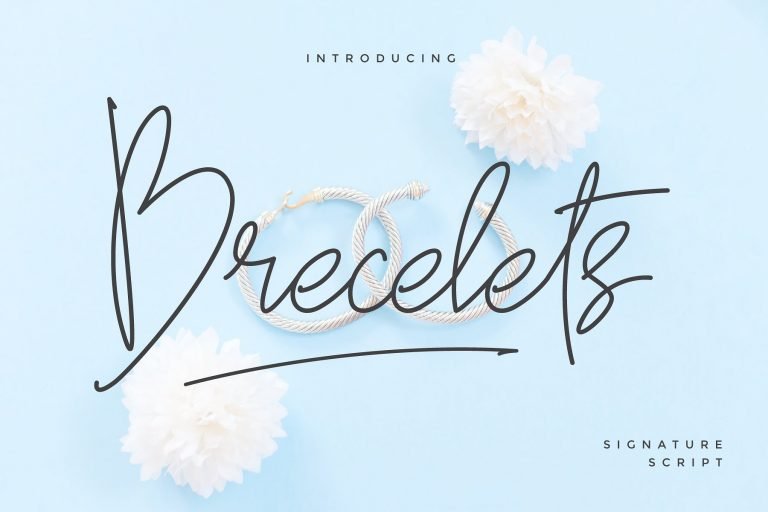
Brecelets Signature Font
A signature milli pen font with classy handwriting style, for everything about you smart people! Introducing Brecelets Font! Brecelets designed and shared by MuSan. Brecelets Font is suit to use for any kind of design such as branding projects, logo, wedding designs, social media posts, advertisements, product packaging, product designs, label, photography, watermark, invitation, poster, t-shirt design, stationery and any projects that need handwriting taste.